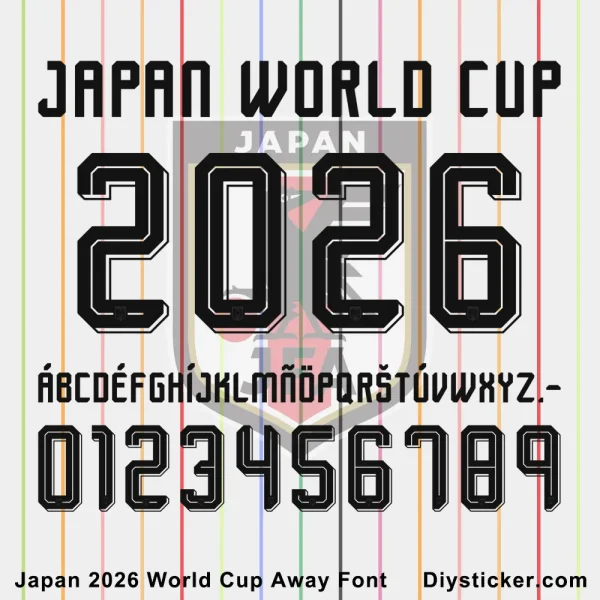
Japan 2026 World Cup Away Font Download
Japan 2026 World Cup Away Font – Complete Vector & Font Package
Bring the spirit of the Samurai Blue to your designs with the Japan 2026 World Cup Away Font. Inspired by the distinctive typography featured on Japan’s away kit for the 2026 World Cup, this font combines modern athletic styling with clean, bold characters that command attention. Whether you’re crafting custom football shirts, fan merchandise, or promotional graphics, this font delivers professional results.